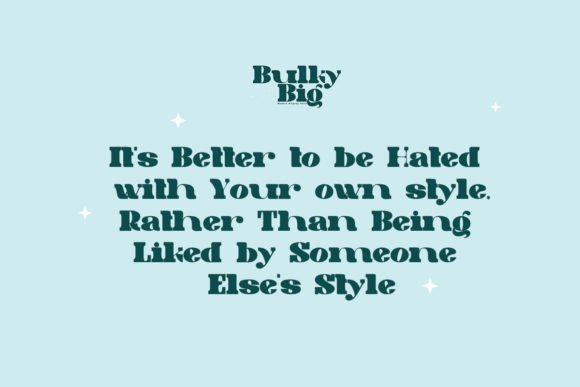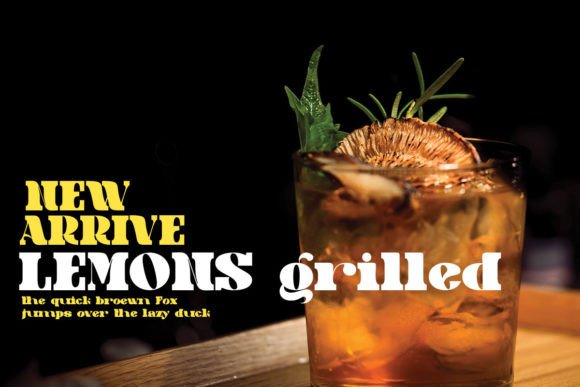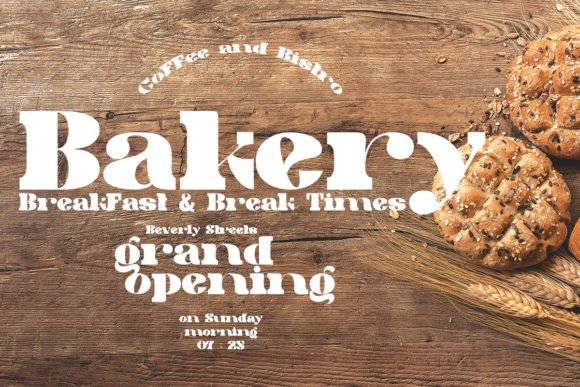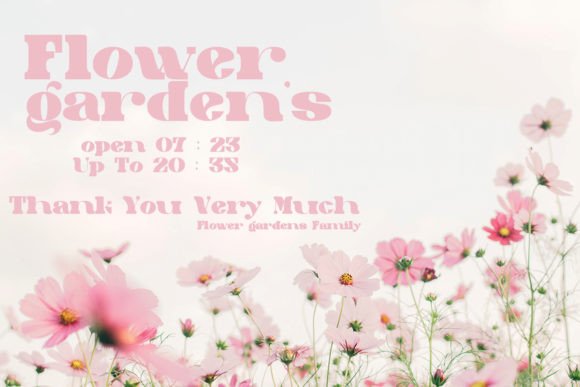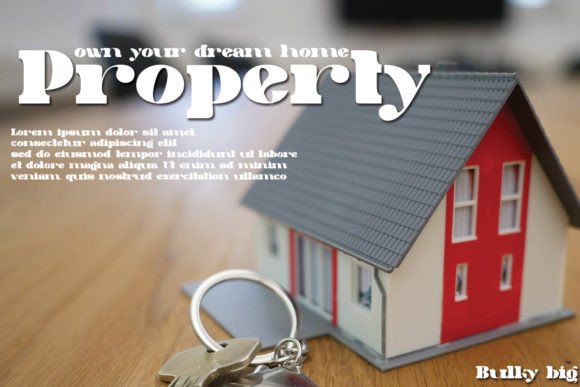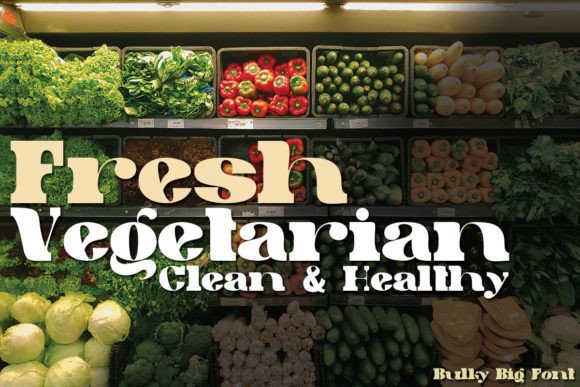
Bulky Big Font: The Ultimate Choice for Playful and Whimsical Designs
In the world of typography, fonts play a crucial role in conveying the tone and personality of a design. When it comes to creating kid-friendly designs, cartoons, comic-books, or any project that requires a playful accent, a bold and eye-catching font is essential. This is where Bulky Big Font comes into play. In this article, we’ll explore the features and benefits of Bulky Big Font, and why it’s the perfect choice for designers and crafters looking to add a touch of whimsy to their work.
What is Bulky Big Font?
Bulky Big Font is a bold, fresh, and thick display font that’s designed to make a statement. Its unique and quirky vibe is perfect for designs that require a playful and eye-catching accent. With its chunky and rounded edges, Bulky Big Font is sure to grab attention and add a touch of fun to any project.
Key Features of Bulky Big Font
- Bold and Thick Design: Bulky Big Font features a bold and thick design that’s perfect for creating eye-catching headings and titles.
- Whimsical and Quirky Vibe: The font’s unique and quirky vibe makes it perfect for kid-friendly designs, cartoons, comic-books, and other playful projects.
- Playful Accent: Bulky Big Font is designed to add a playful accent to your designs, making it perfect for projects that require a touch of fun and personality.
- Easy to Read: Despite its bold and thick design, Bulky Big Font is easy to read, making it perfect for use in a variety of design projects.
Use Cases for Bulky Big Font
Bulky Big Font is a versatile font that can be used in a variety of design projects, including:
- Kid-Friendly Designs: Bulky Big Font is perfect for designing kid-friendly materials, such as children’s books, posters, and flyers.
- Cartoons and Comic-Books: The font’s playful and quirky vibe makes it perfect for use in cartoons and comic-books.
- Playful Headings and Titles: Bulky Big Font can be used to create playful headings and titles for a variety of design projects, including brochures, posters, and flyers.
- Branding and Packaging: The font’s bold and eye-catching design makes it perfect for use in branding and packaging projects.
Benefits of Using Bulky Big Font
Using Bulky Big Font in your design projects offers a range of benefits, including:
- Instant Attention: The font’s bold and eye-catching design is sure to grab attention and draw the viewer in.
- Playful Personality: Bulky Big Font adds a playful and quirky personality to your designs, making them more engaging and fun.
- Easy to Use: The font is easy to use and can be incorporated into a variety of design projects.
- Versatile: Bulky Big Font is a versatile font that can be used in a range of design projects, from kid-friendly designs to branding and packaging.
Tips for Using Bulky Big Font
Here are some tips for using Bulky Big Font in your design projects:
- Use it Sparingly: While Bulky Big Font is a bold and eye-catching font, it’s best to use it sparingly to avoid overwhelming the viewer.
- Pair it with Other Fonts: Bulky Big Font can be paired with other fonts to create a unique and visually appealing design.
- Experiment with Colors: The font’s bold design makes it perfect for use with bright and bold colors.
In conclusion, Bulky Big Font is a bold, fresh, and thick display font that’s perfect for designers and crafters looking to add a touch of whimsy to their work. Its unique and quirky vibe makes it perfect for kid-friendly designs, cartoons, comic-books, and other playful projects. With its ease of use, versatility, and bold design, Bulky Big Font is sure to become a staple in any designer’s font collection.